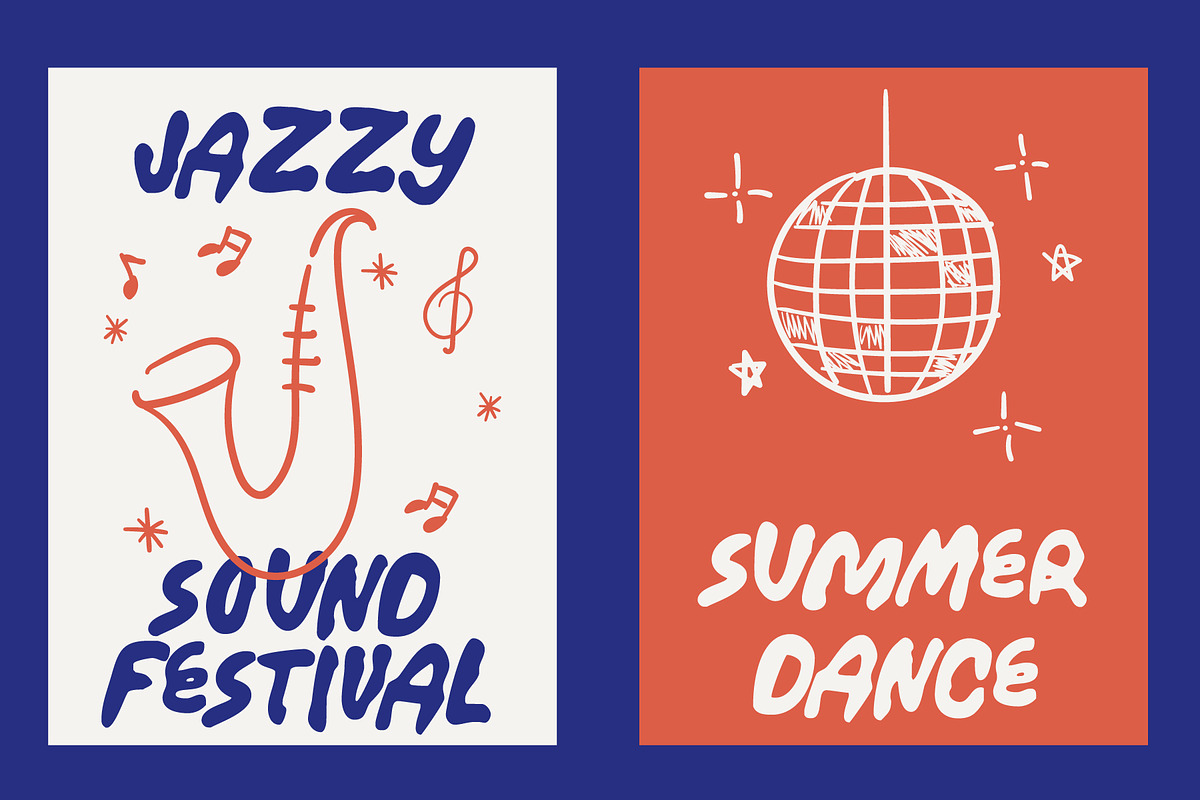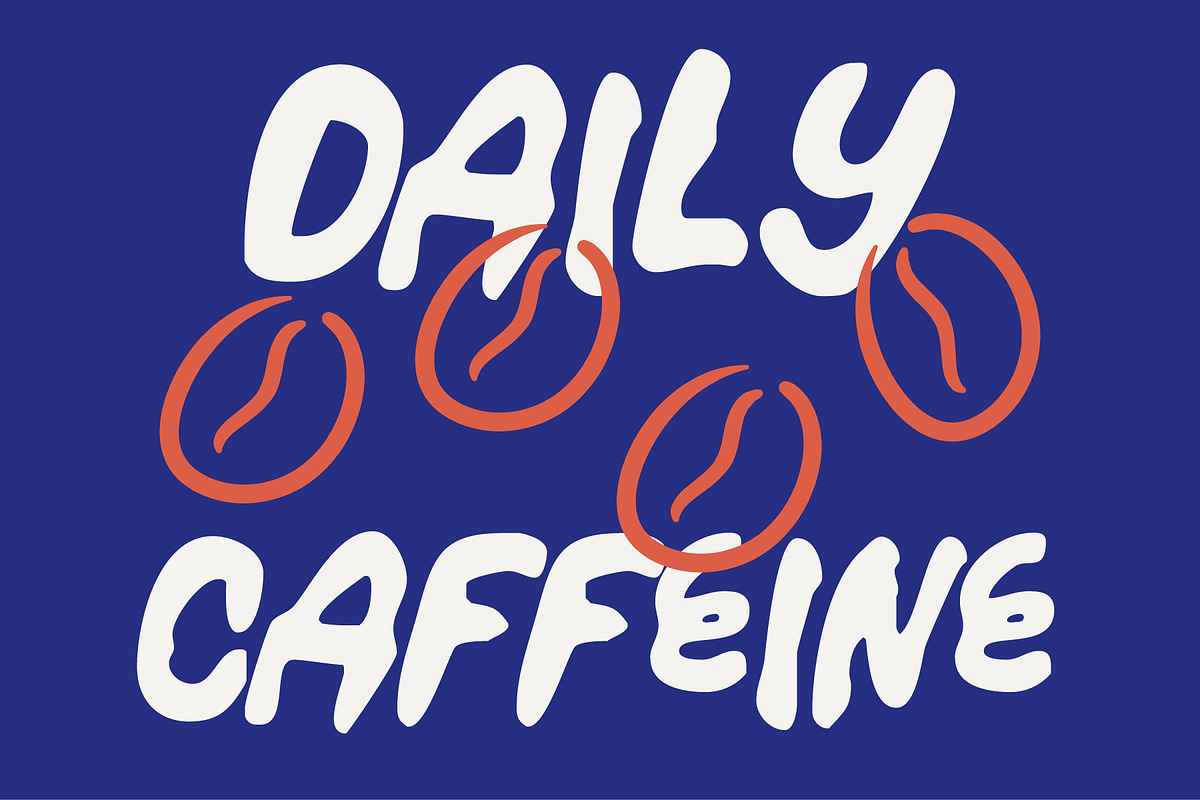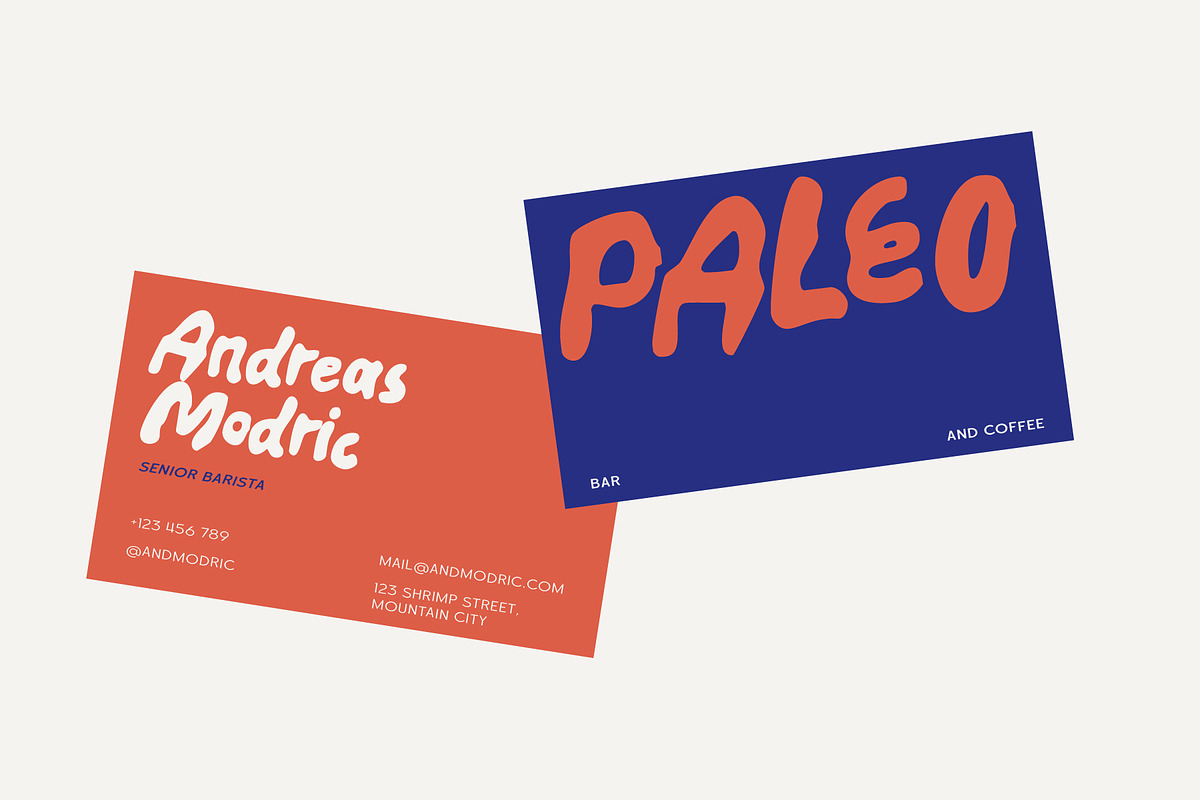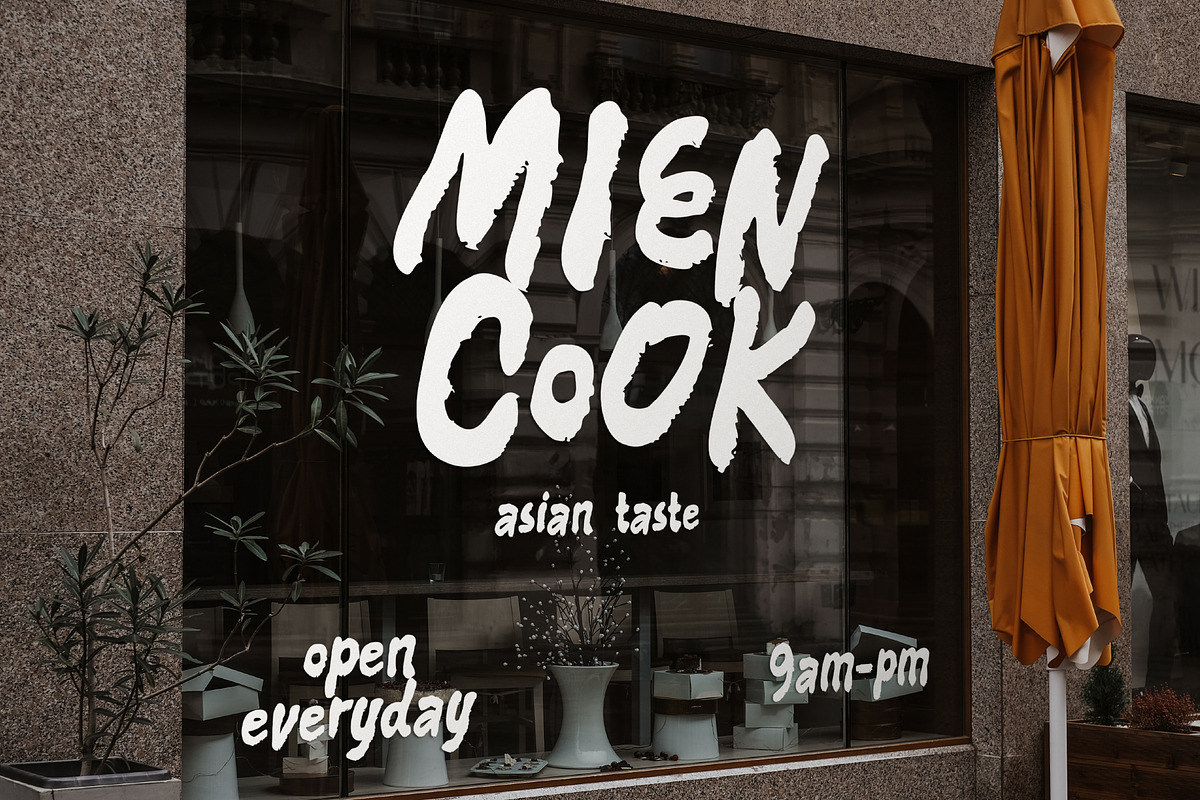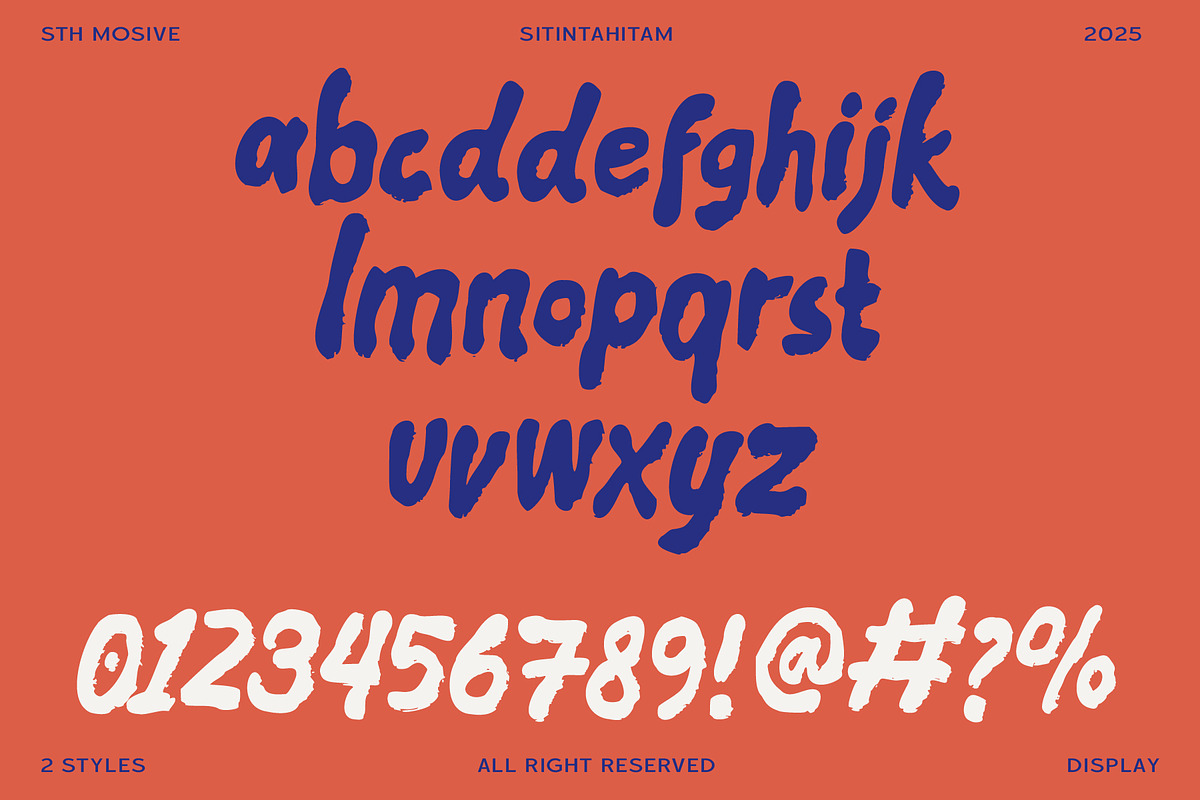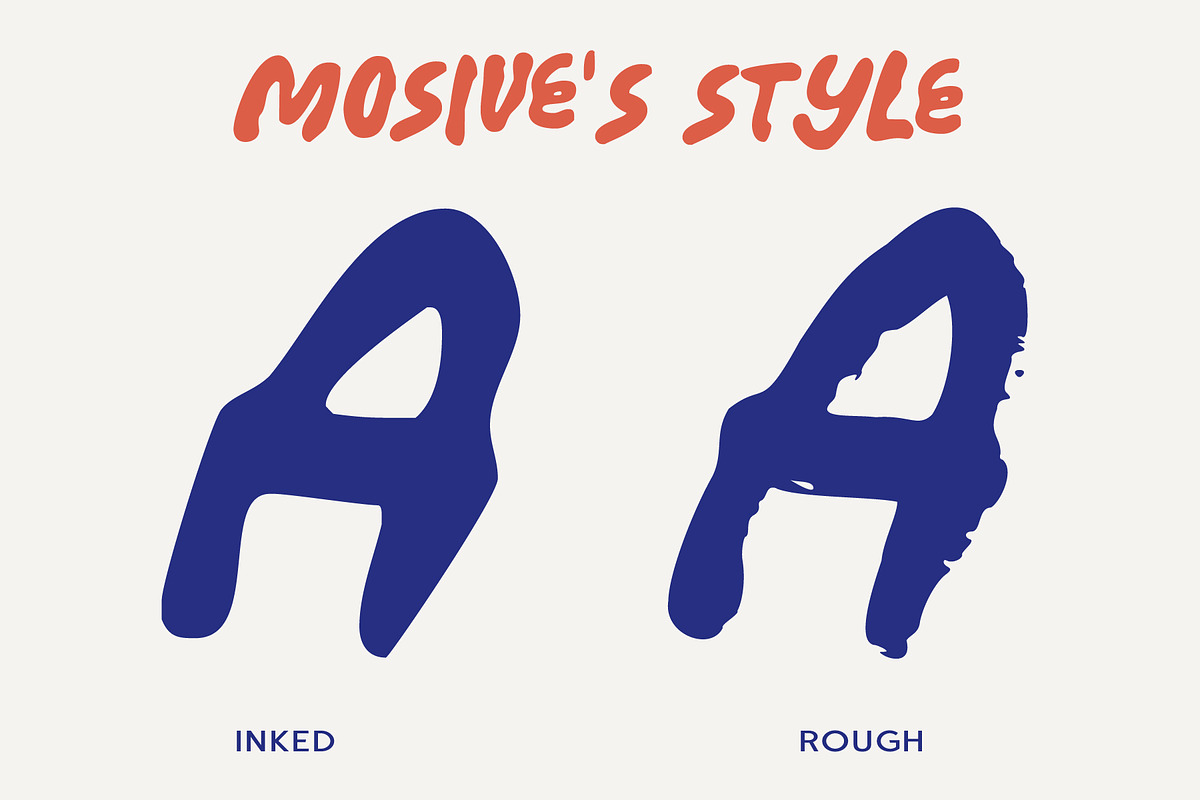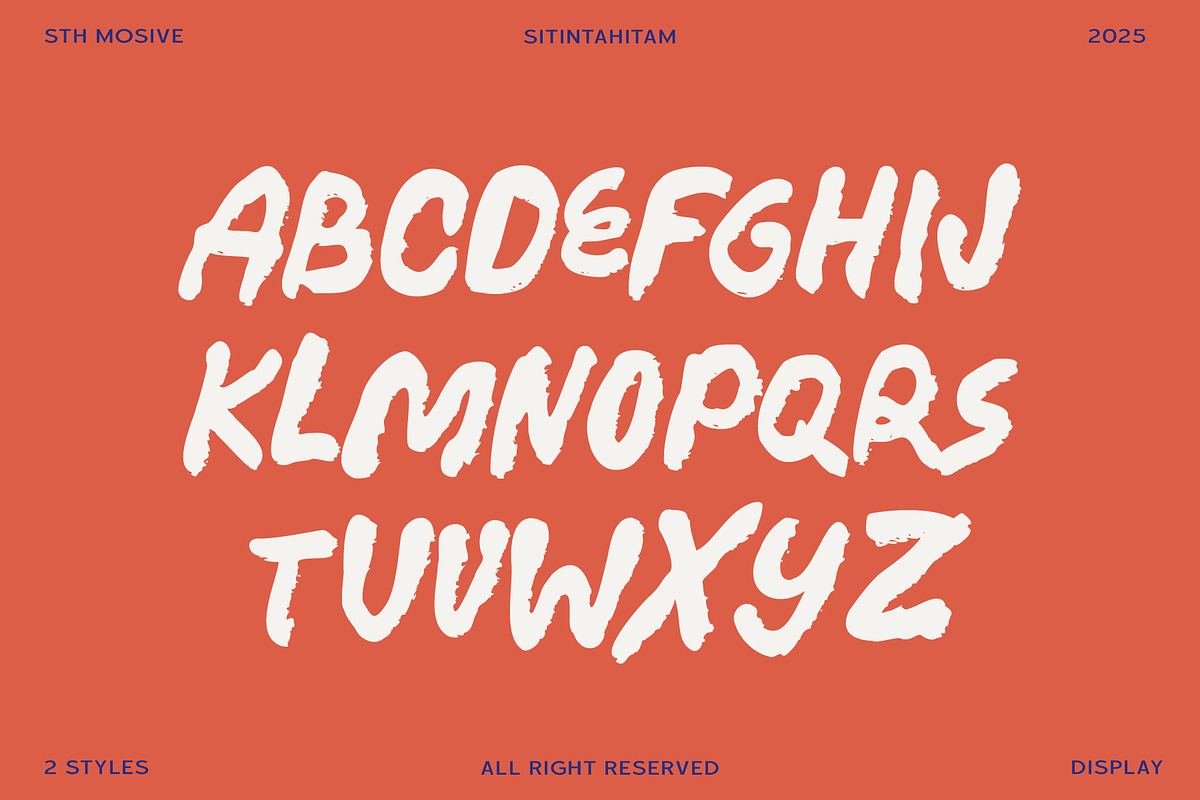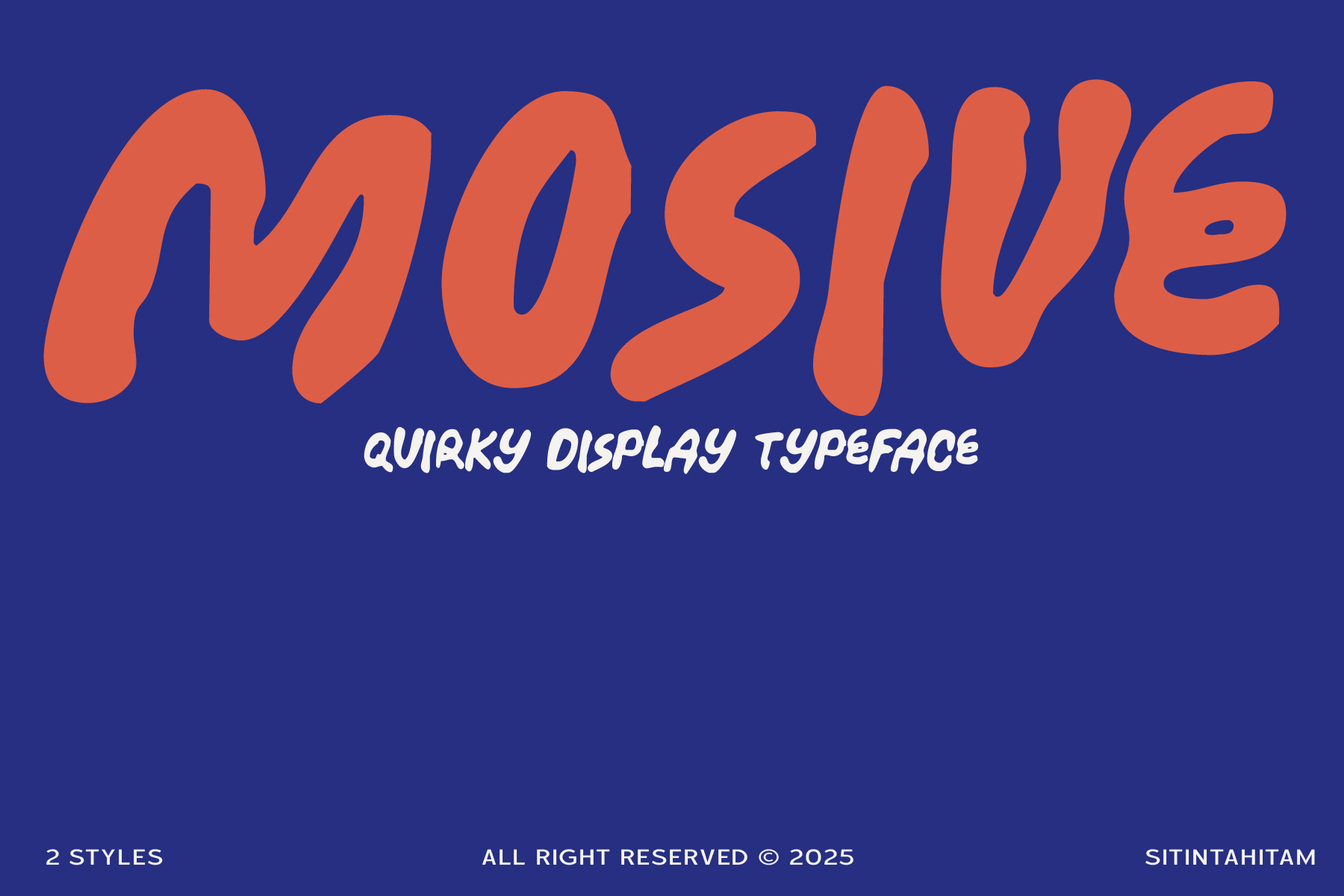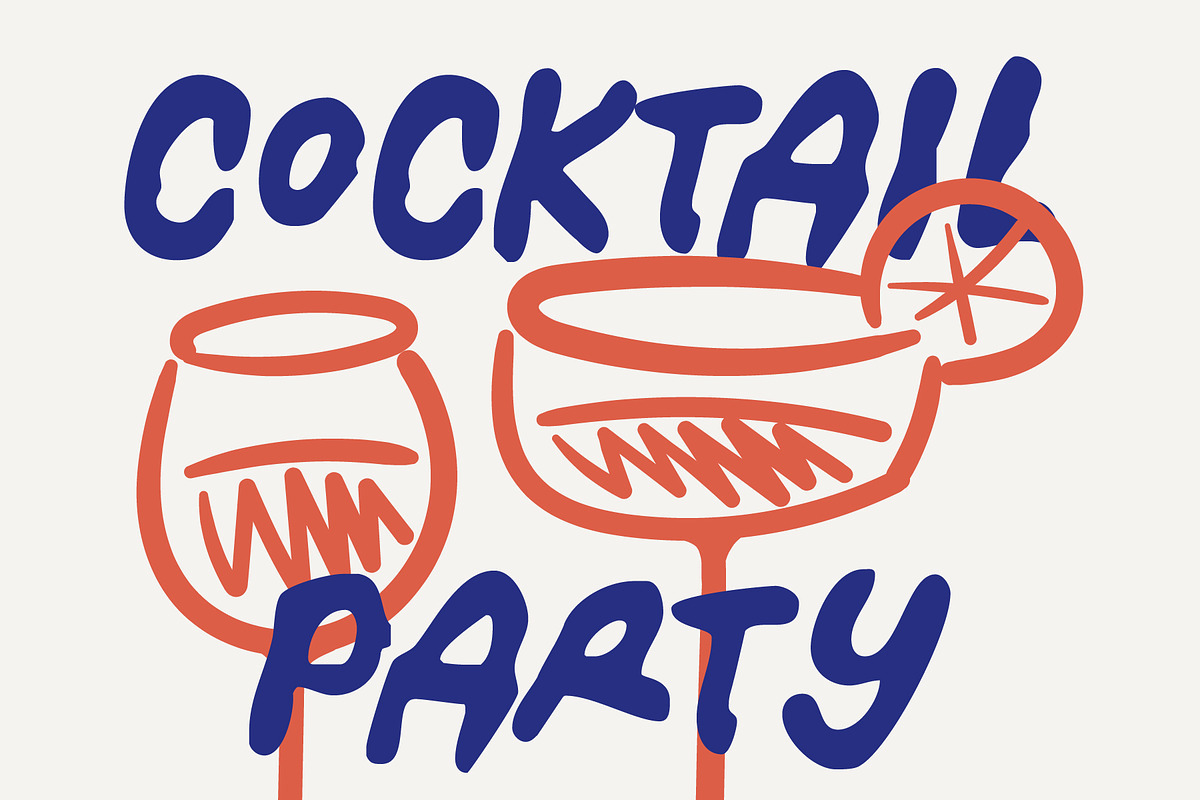
Mosive Quirky Display Typeface
MOSIVE – a quirky display typeface that embraces playfulness and charm in every curve. Inspired by joyful hand-lettering, MOSIVE brings a relaxed, friendly vibe to your designs, making it ideal for event posters, café branding, party invitations, or any project that calls for an energetic, feel‑good touch. Mosive comes with 2 style Inked and Rough. Bring warmth and joy to every project. Choose MOSIVE, and let your typography tell the story of freedom, fun, and fearless creativity.